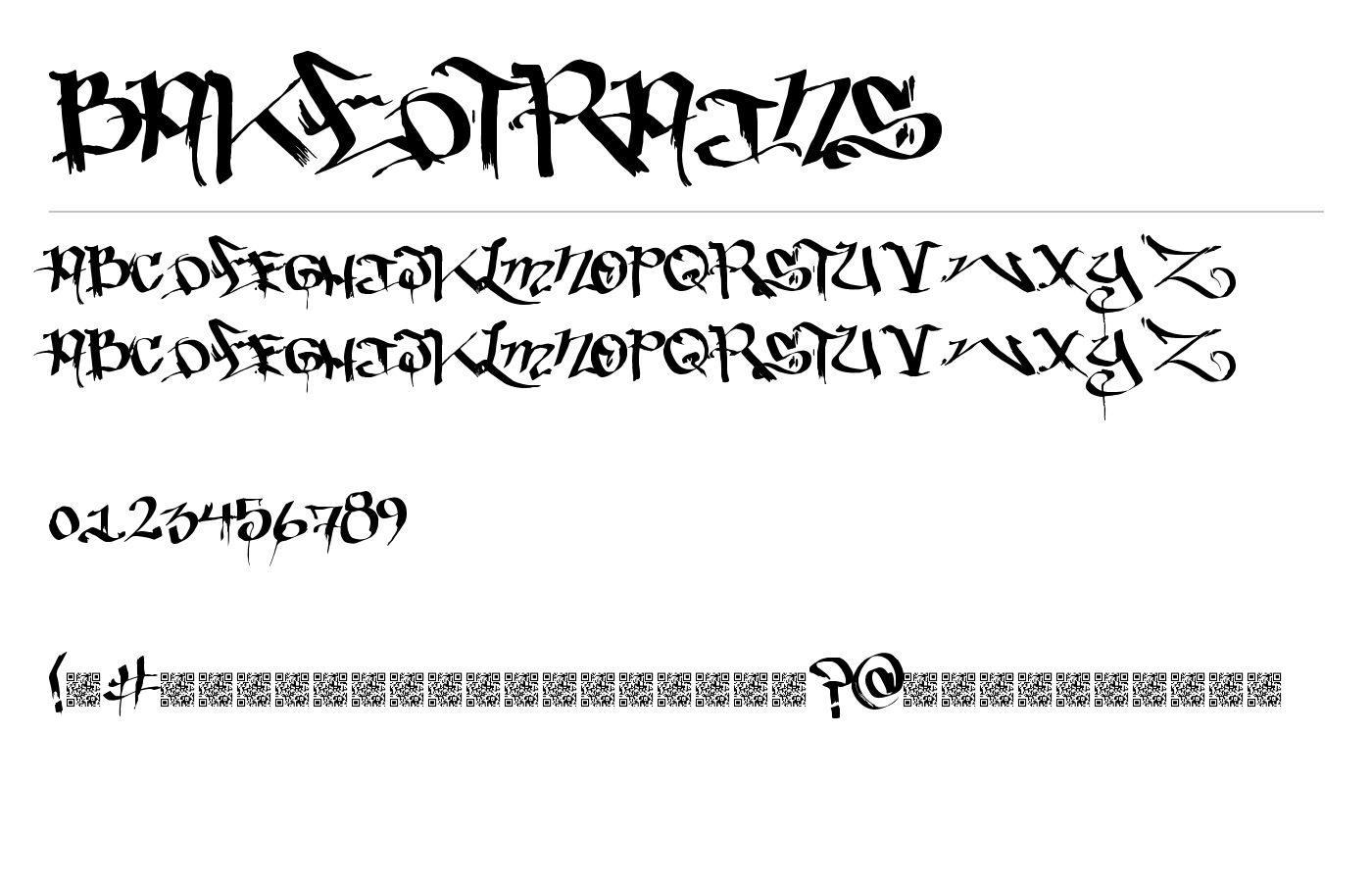
BakedTrains is an expressive, bold display font with a graffiti-inspired, calligraphic style that features sharp, irregular strokes and high contrast between thick and thin lines. Its angular, edgy letterforms and dynamic details create a rebellious and artistic vibe, making it ideal for urban-themed designs, posters, and branding that seek to stand out with a unique, streetwise personality. This font works best in headlines and creative projects where bold visual impact is essential.